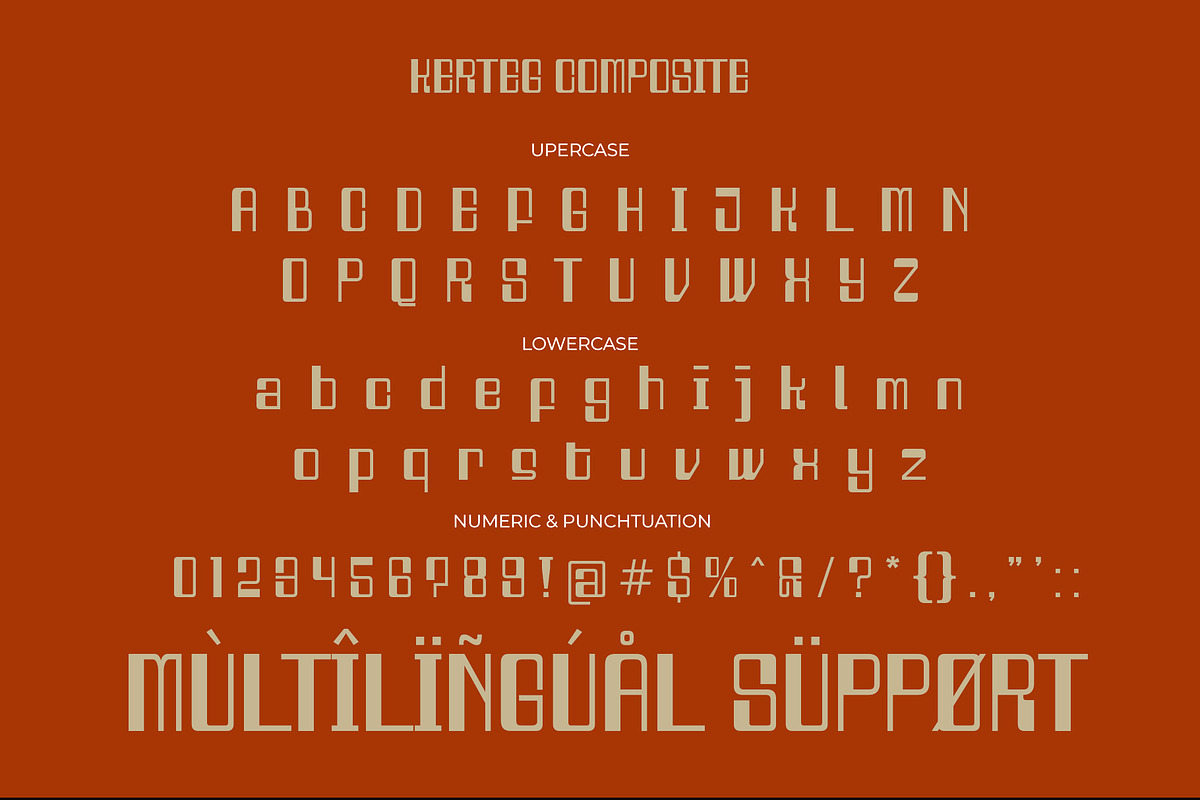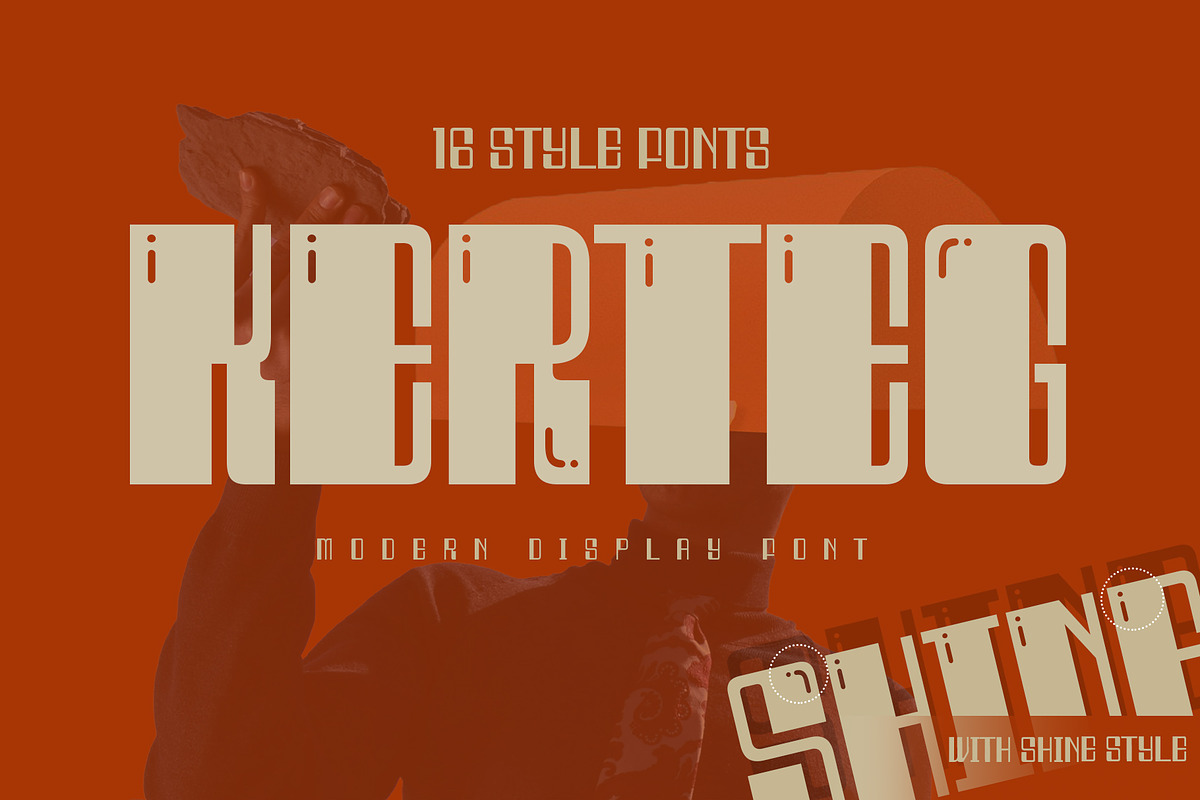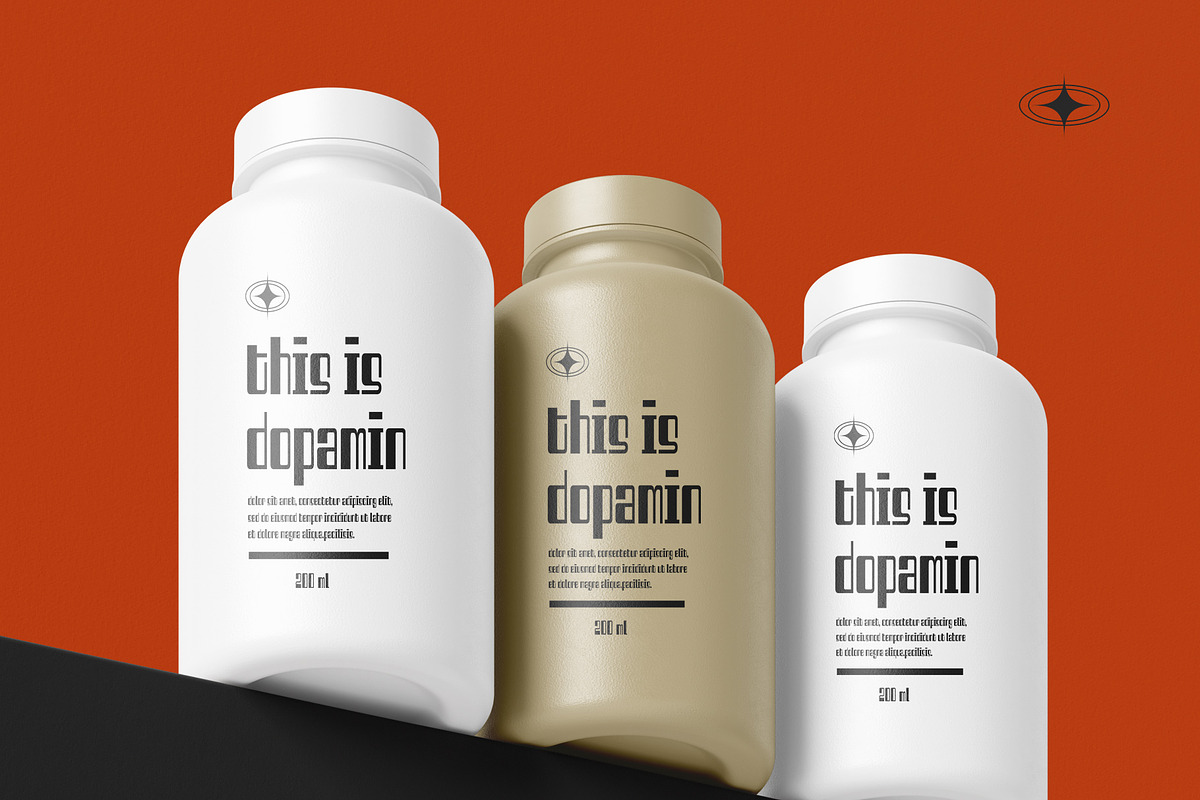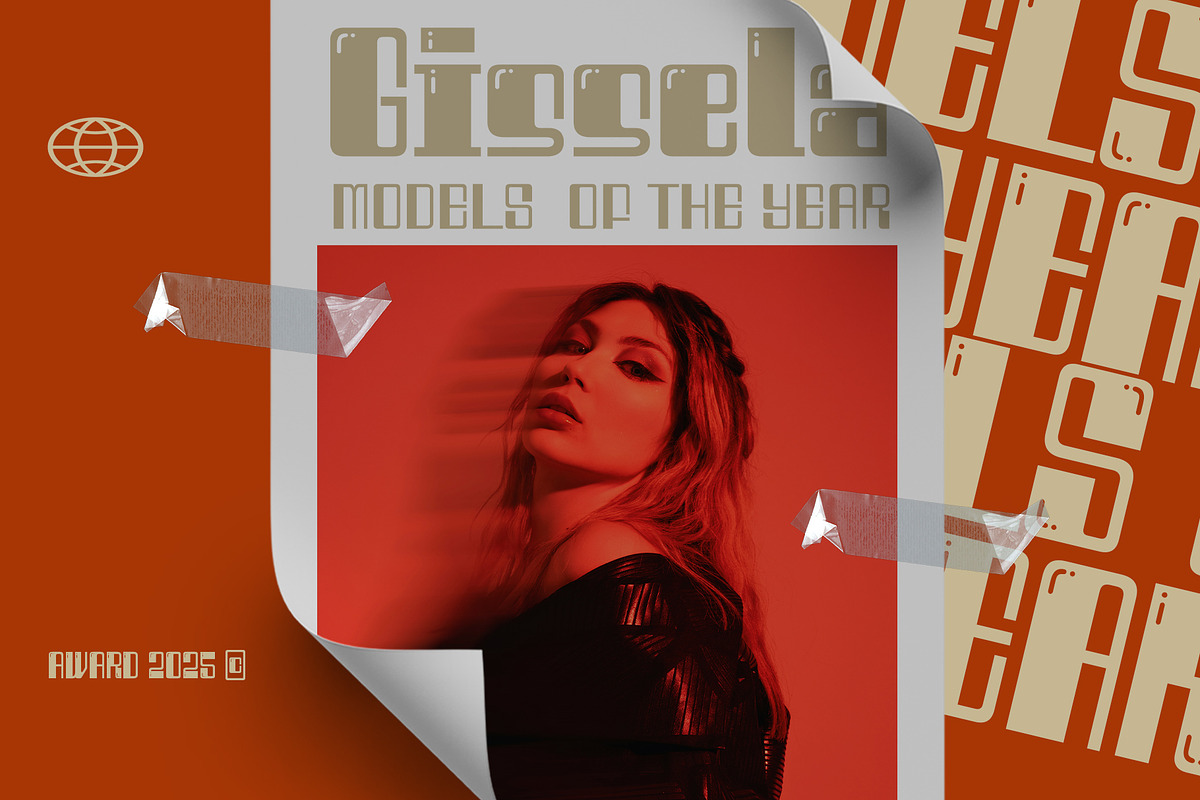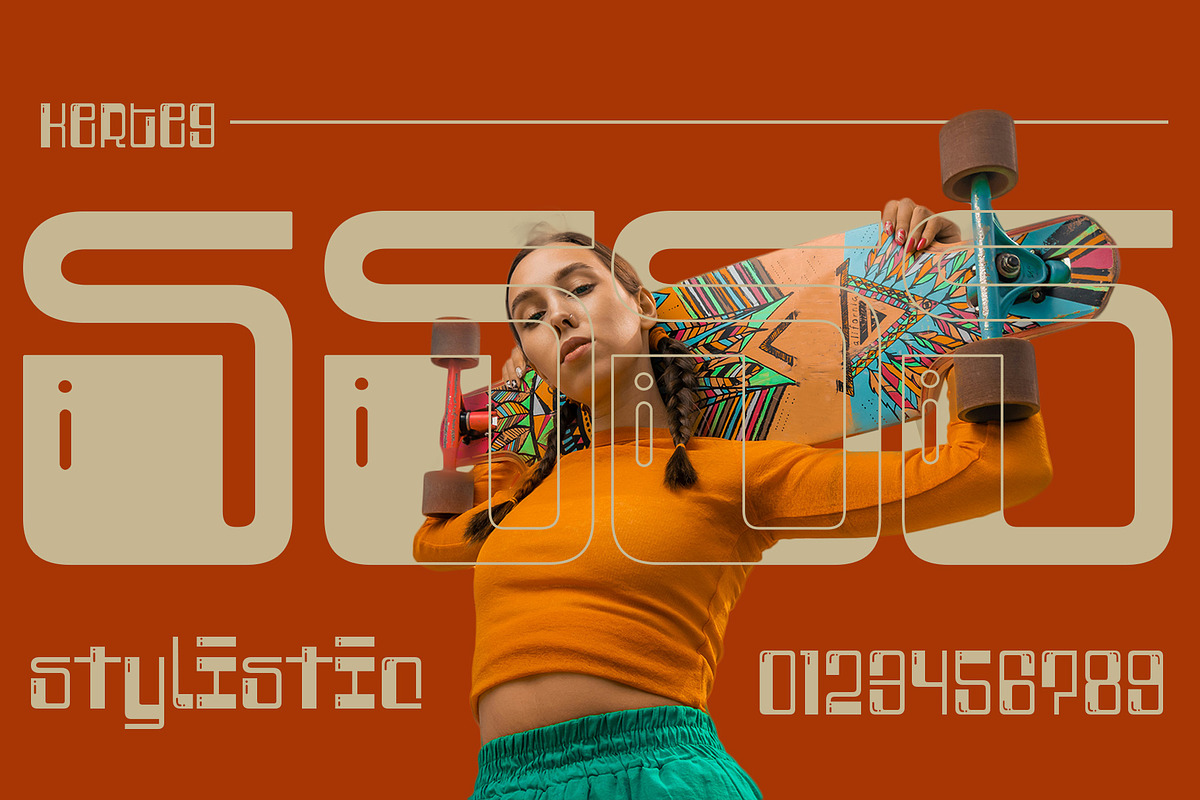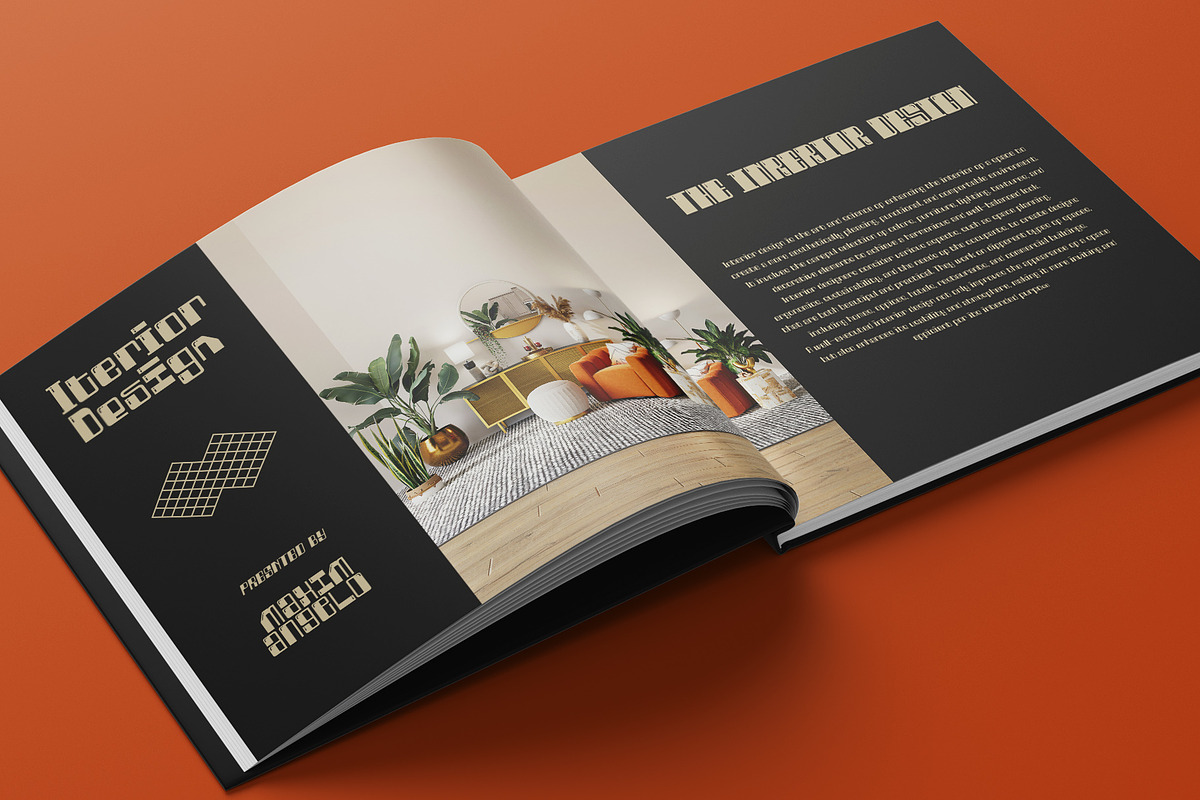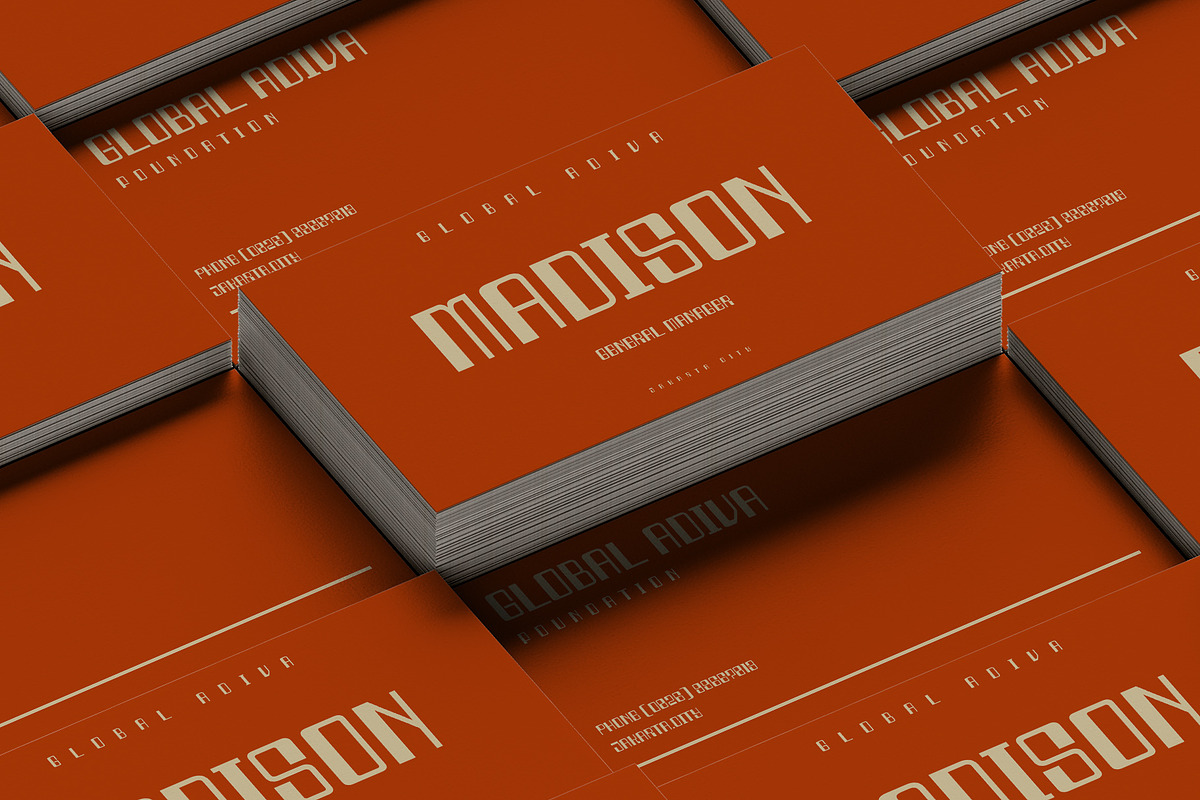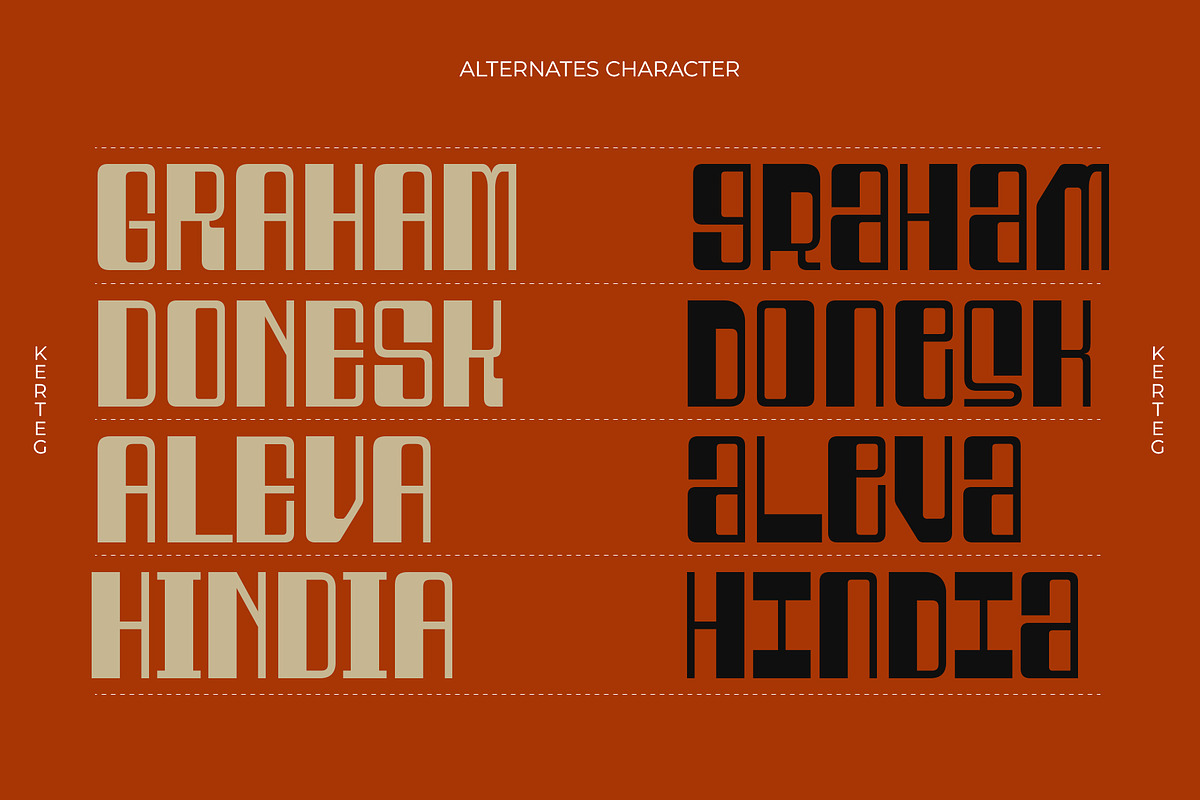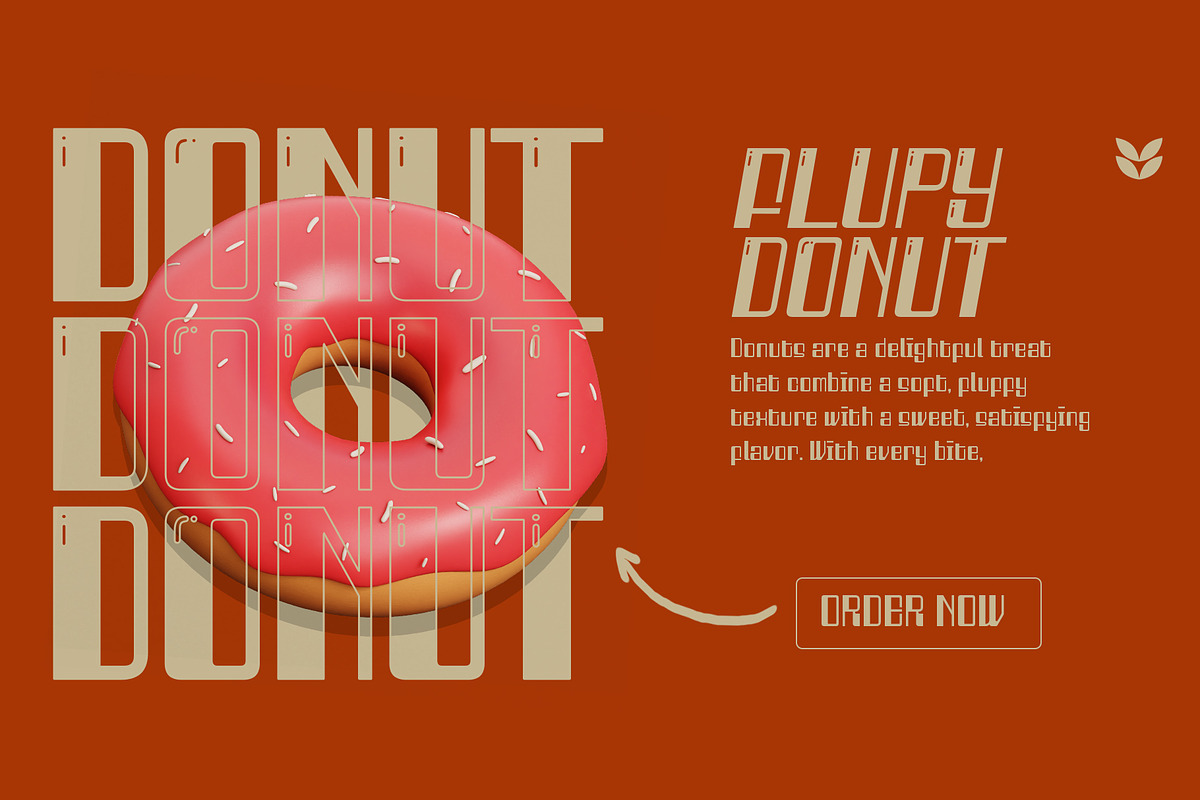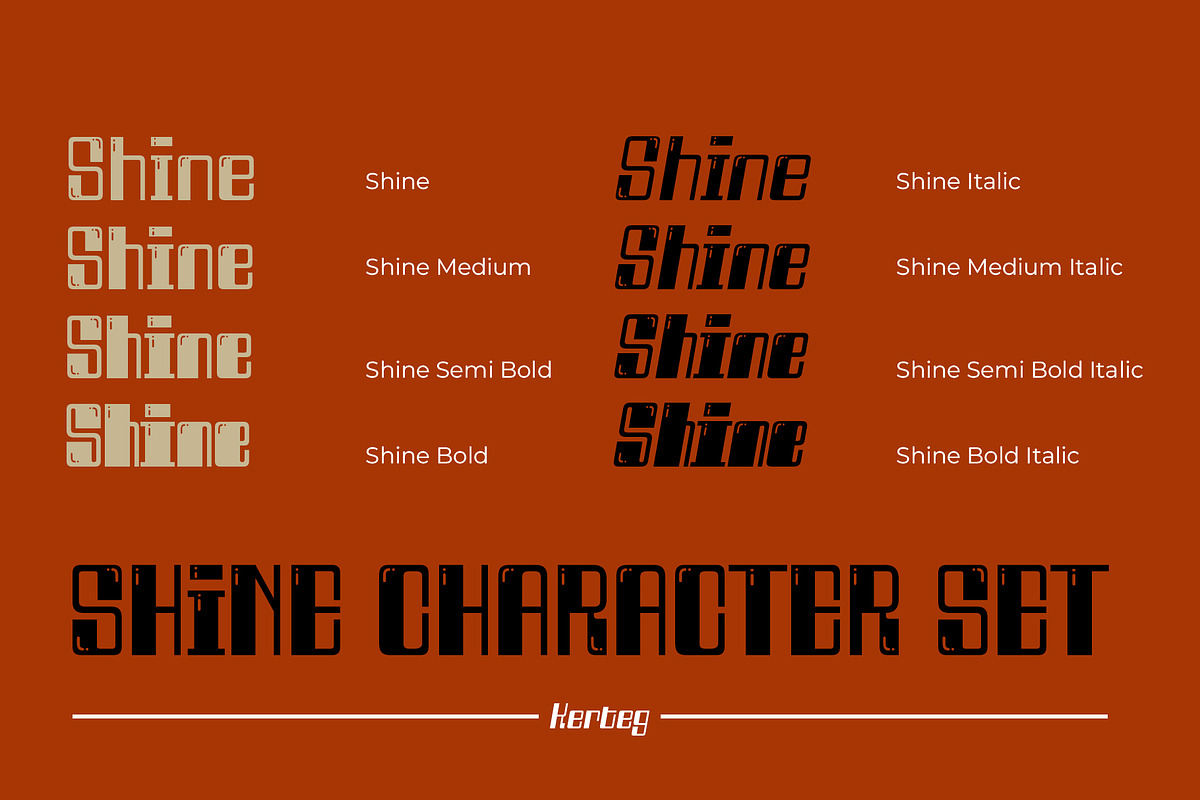
Kerteg
Kerteg is a display sans serif font that breaks away from conventions. Available in two distinct styles—Regular and Shine—it offers a total of 16 flexible weights tailored for bold visual expressions. The Shine version features a glossy, bubble-like effect, making it a standout option for playful yet structured typography.
Born from a desire to challenge the typical sans serif norms, Kerteg doesn’t follow traditional stroke contrast rules. Instead, it embraces a more expressive form while maintaining a confident and readable structure. This font shows that sans serifs can be fun and dynamic—not always rigid or formal.
With its striking balance between structure and playfulness, Kerteg stands out as a bold typographic choice for brand identity. Its wide range of weights and unique dual-style design allow brands to adapt the tone—whether serious, stylish, or fun—without losing consistency. Kerteg’s distinctive character ensures memorability, making it an excellent tool for crafting strong visual recognition and emotional connection across packaging, logos, campaigns, and beyond.